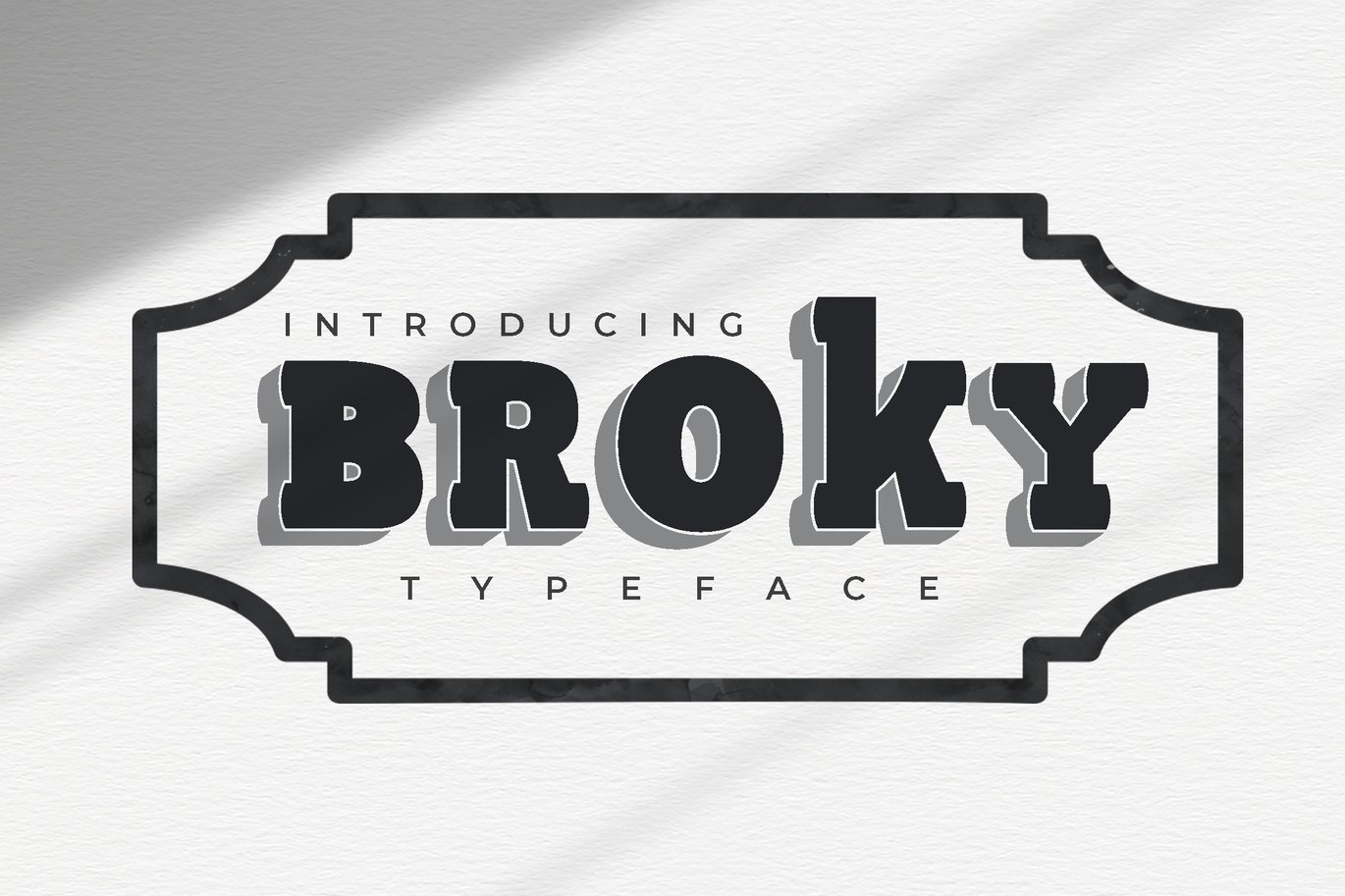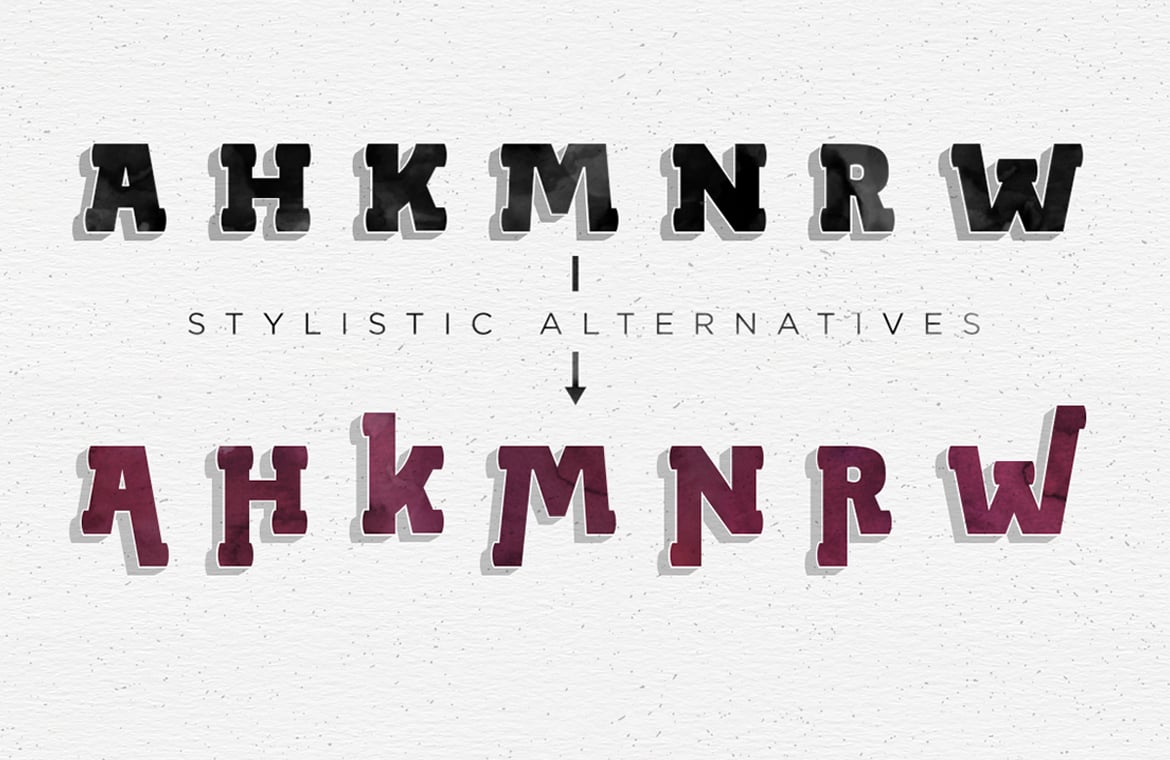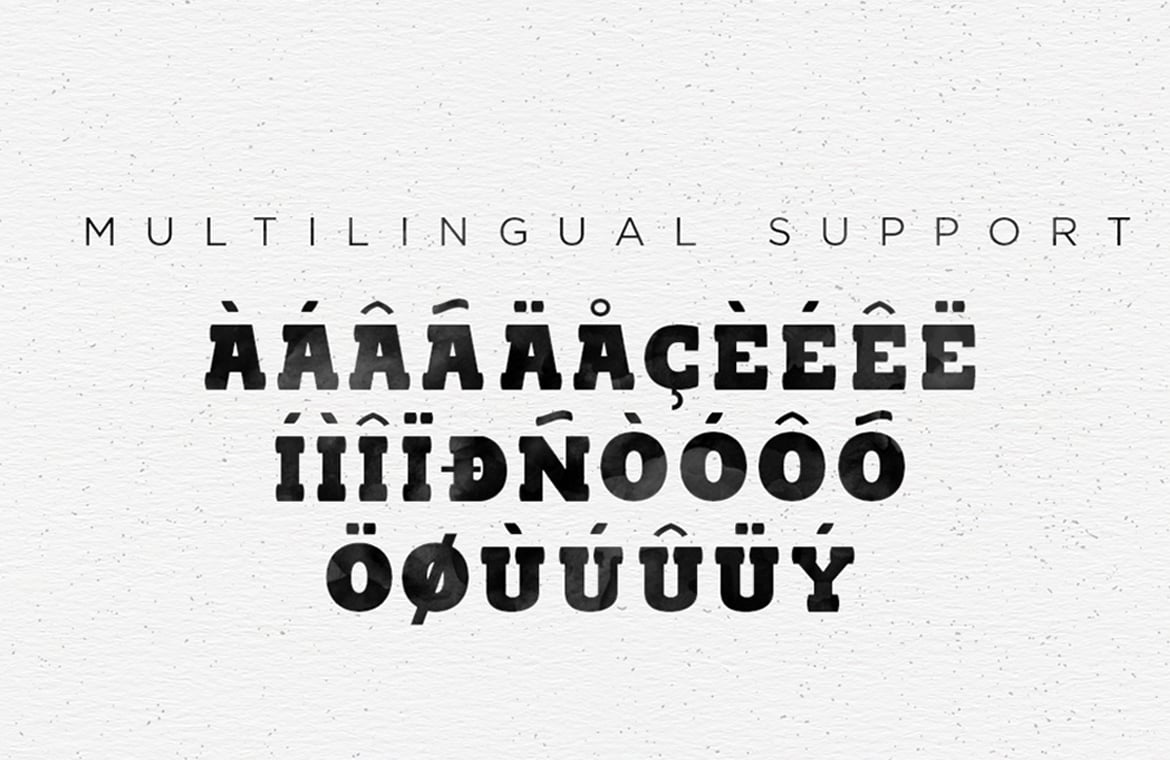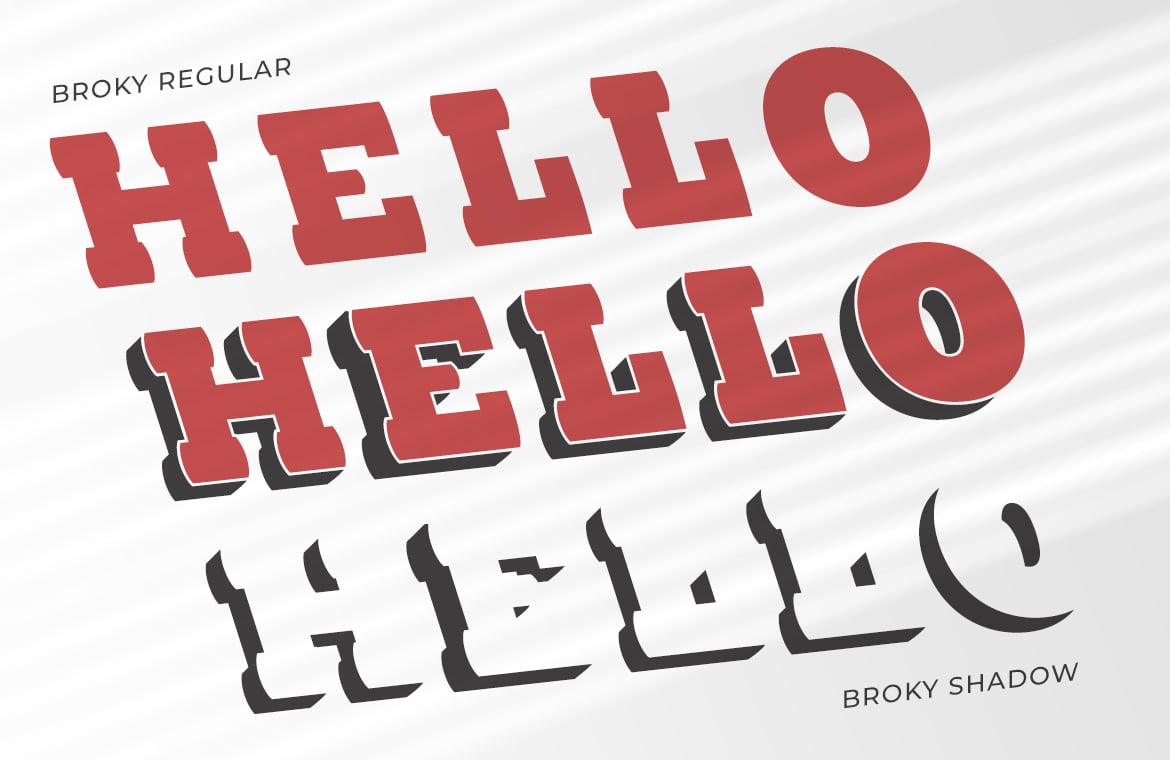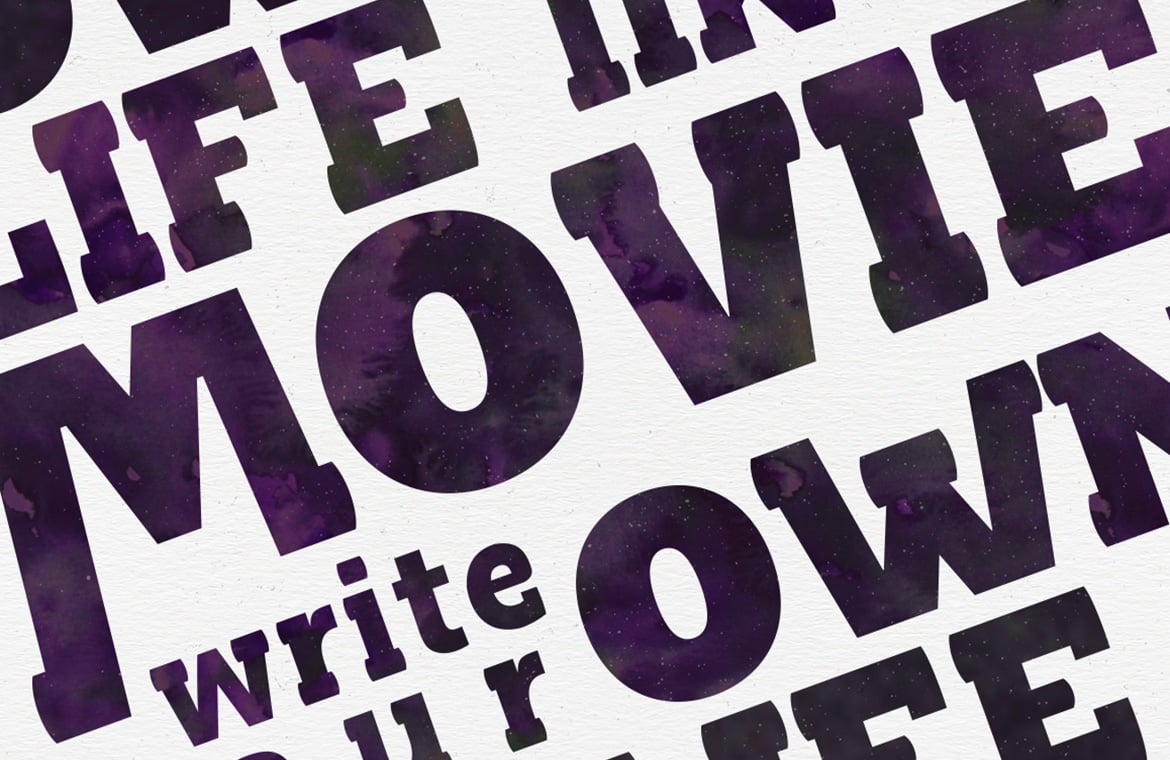
Broky Typeface
Broky is a modern slab serif font for display in a bigger size, OpenType features with Stylistic Alternates that allows you to mix and match pairs of letters to fit your design, and also a shadow this font look stylist.To access the alternat glyphs, you need a program that supports OpenType features such as Adobe Illustrator CS and Adobe Indesign.You can use this font for various purposes.such as Letterhead, book cover,etc